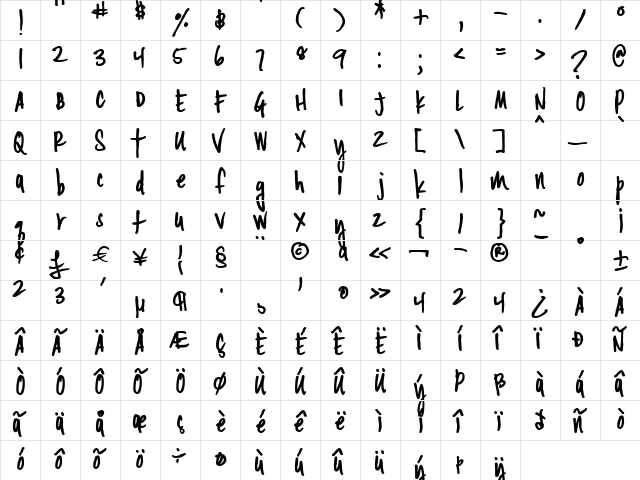
Cinahand Regular
| Foundry | YouWorkForThem |
| Designer | Michael Cina |
Design Context for Cinahand Typeface
Cinahand flows with the natural rhythm of handwritten lettering, making it ideal for designs that call for warmth and personal expression.